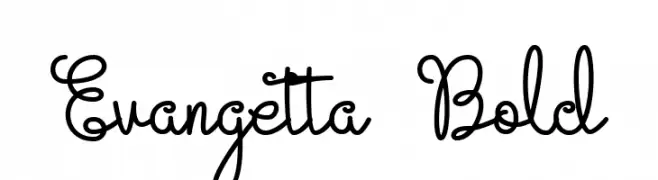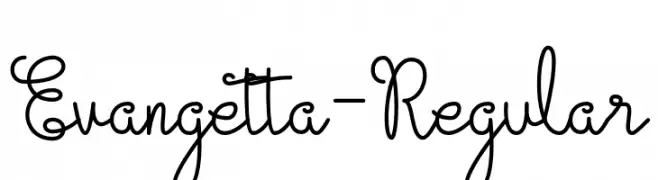
A graceful script font with fluid, cursive strokes and a sophisticated style.
A graceful and flowing script font with elegant curves and playful loops.
A delicate, elegant script font with thin, flowing lines and a handwritten appearance.
A playful, hand-drawn script font with interconnected letters and a whimsical style.
A playful and whimsical script font with looping, flowing letterforms.